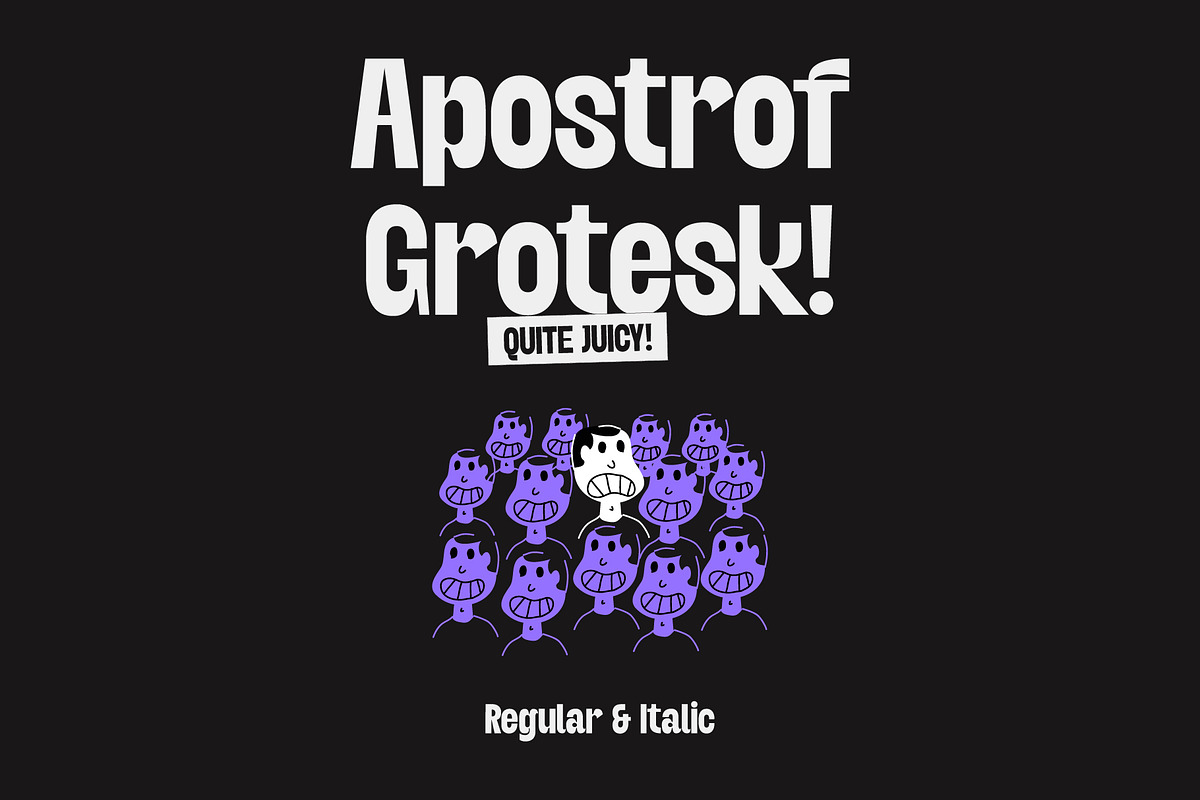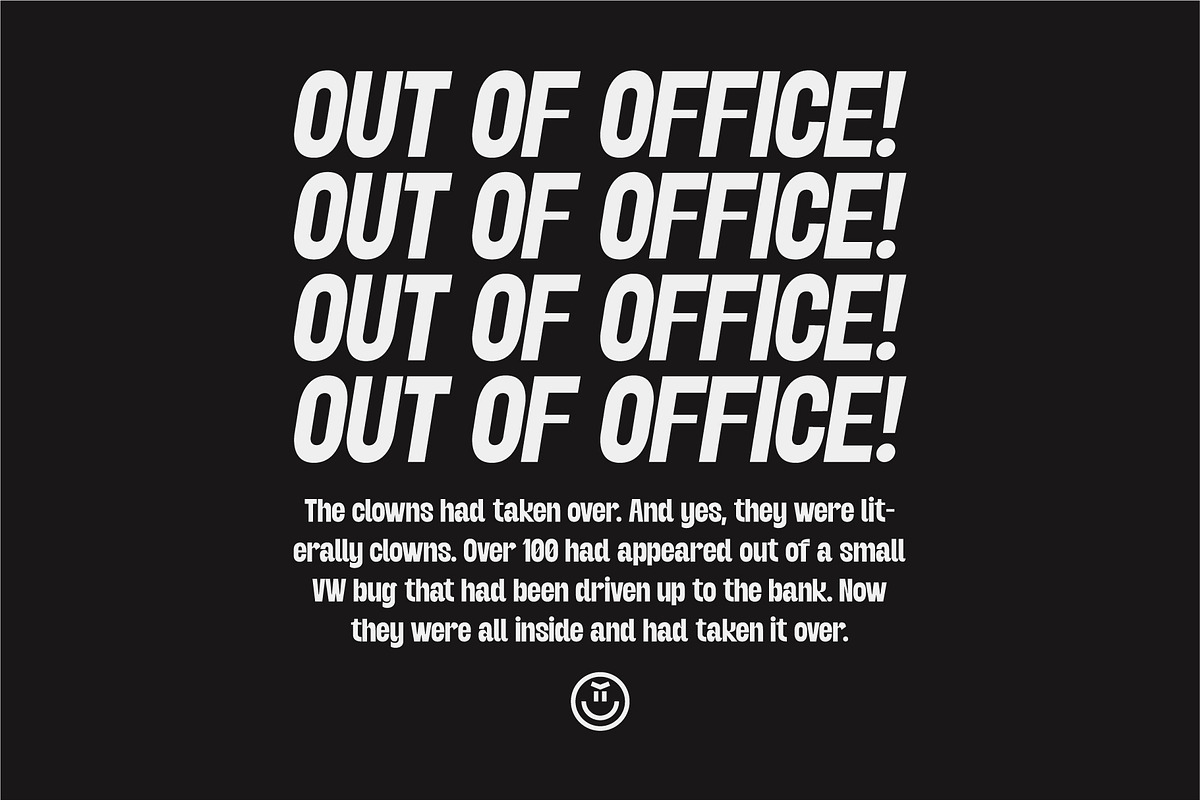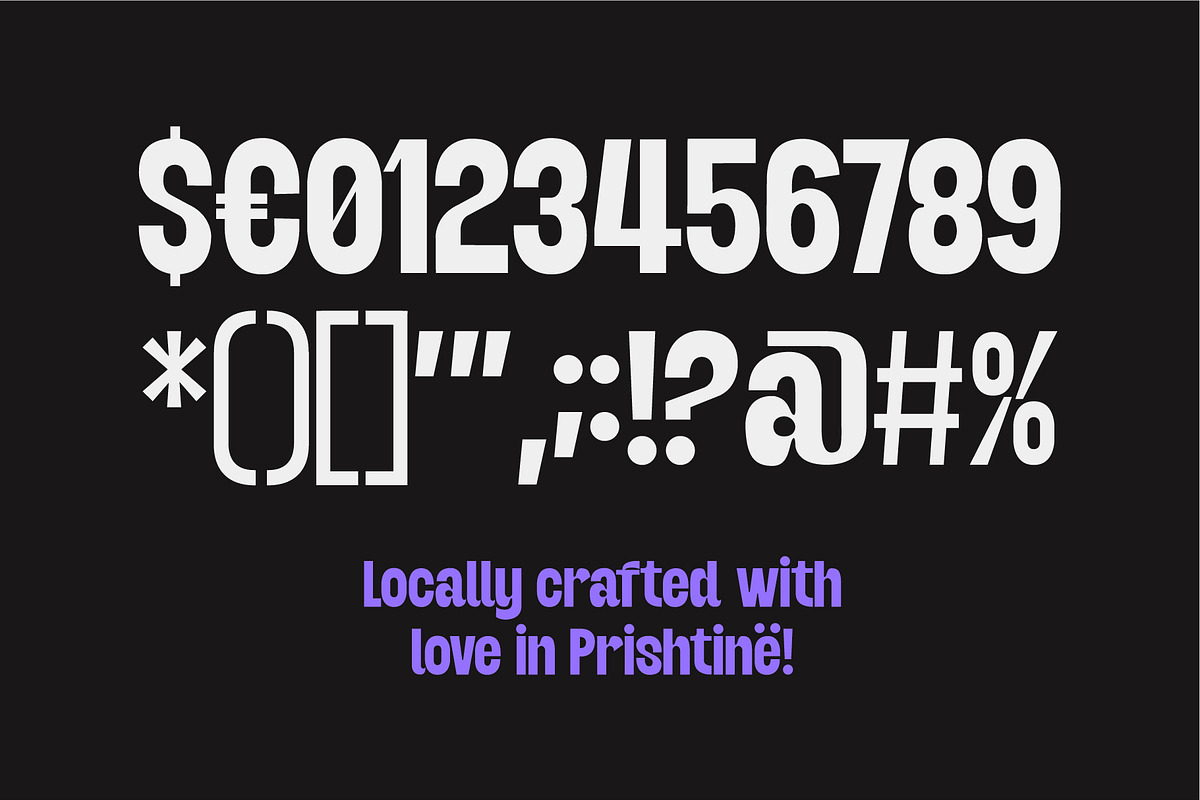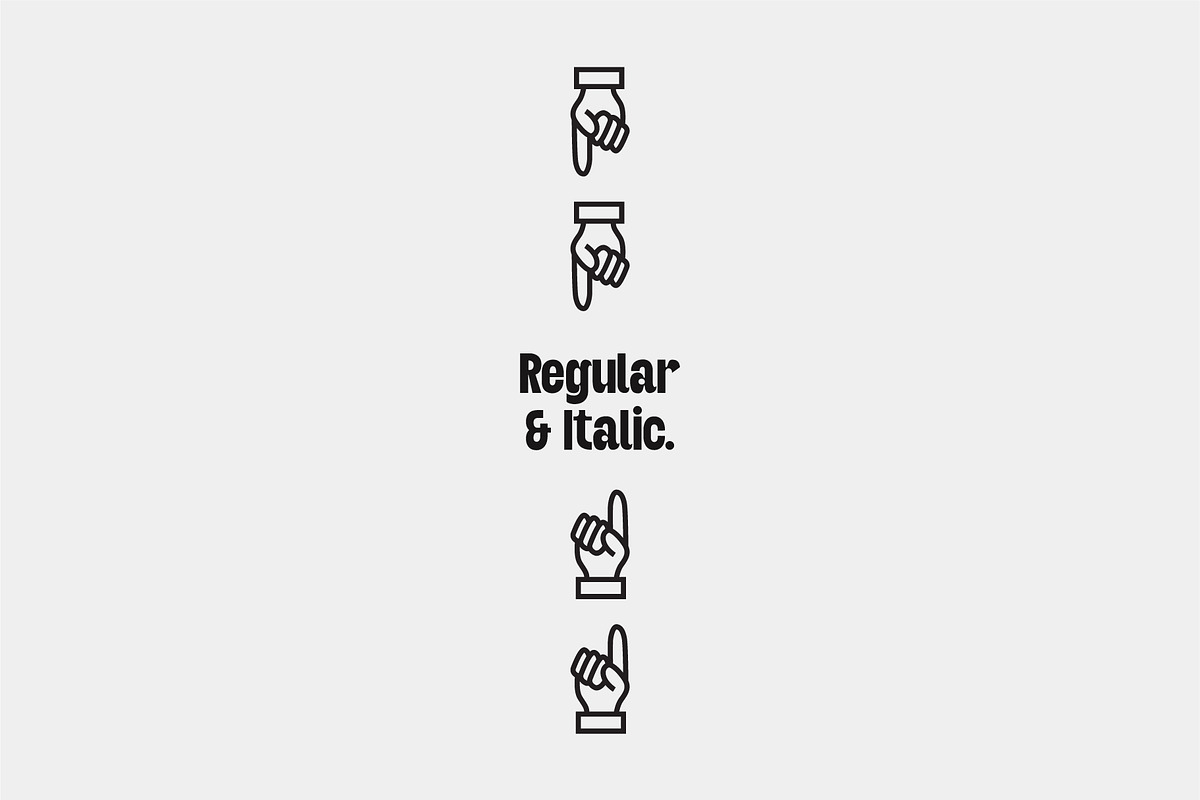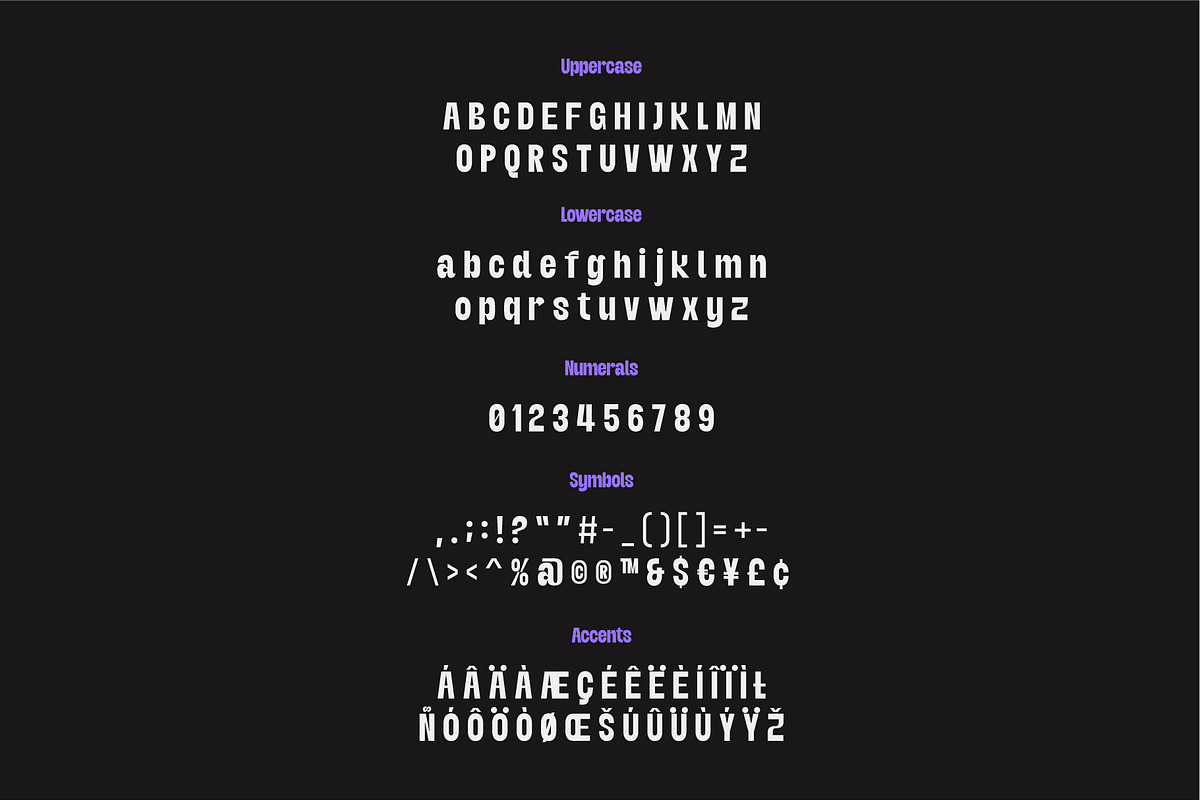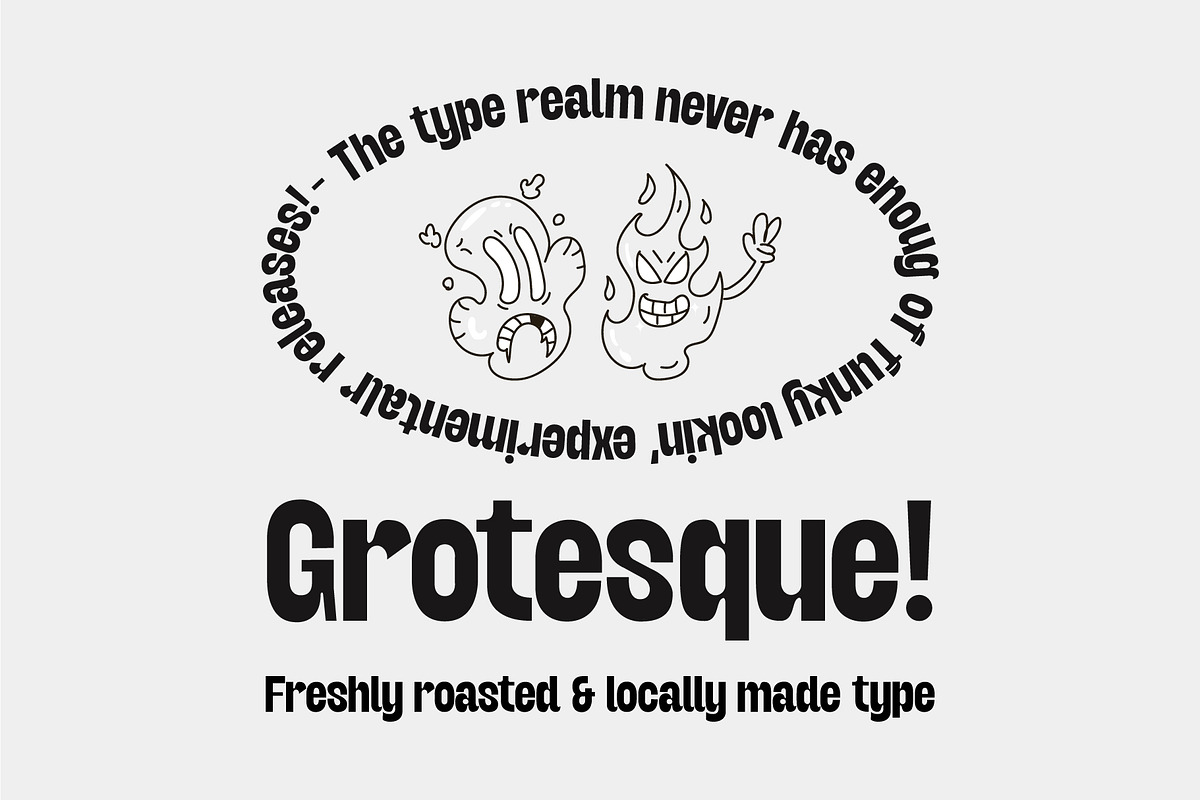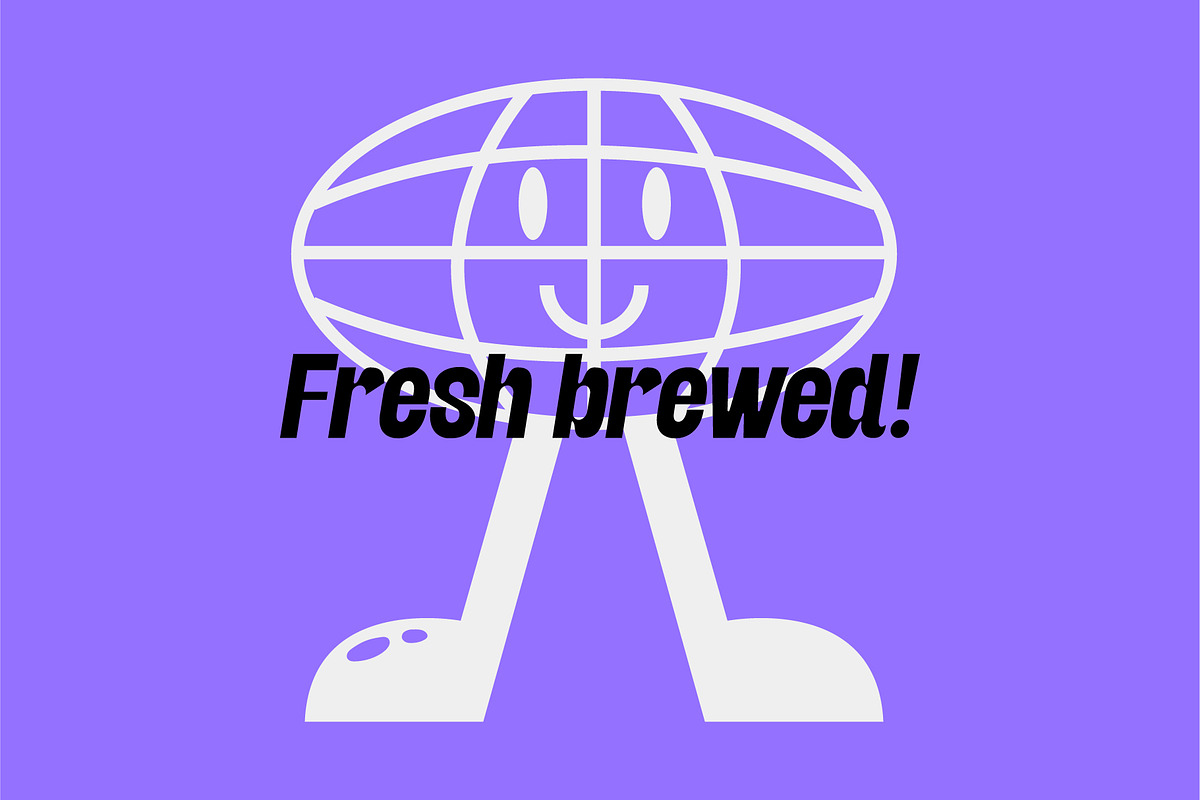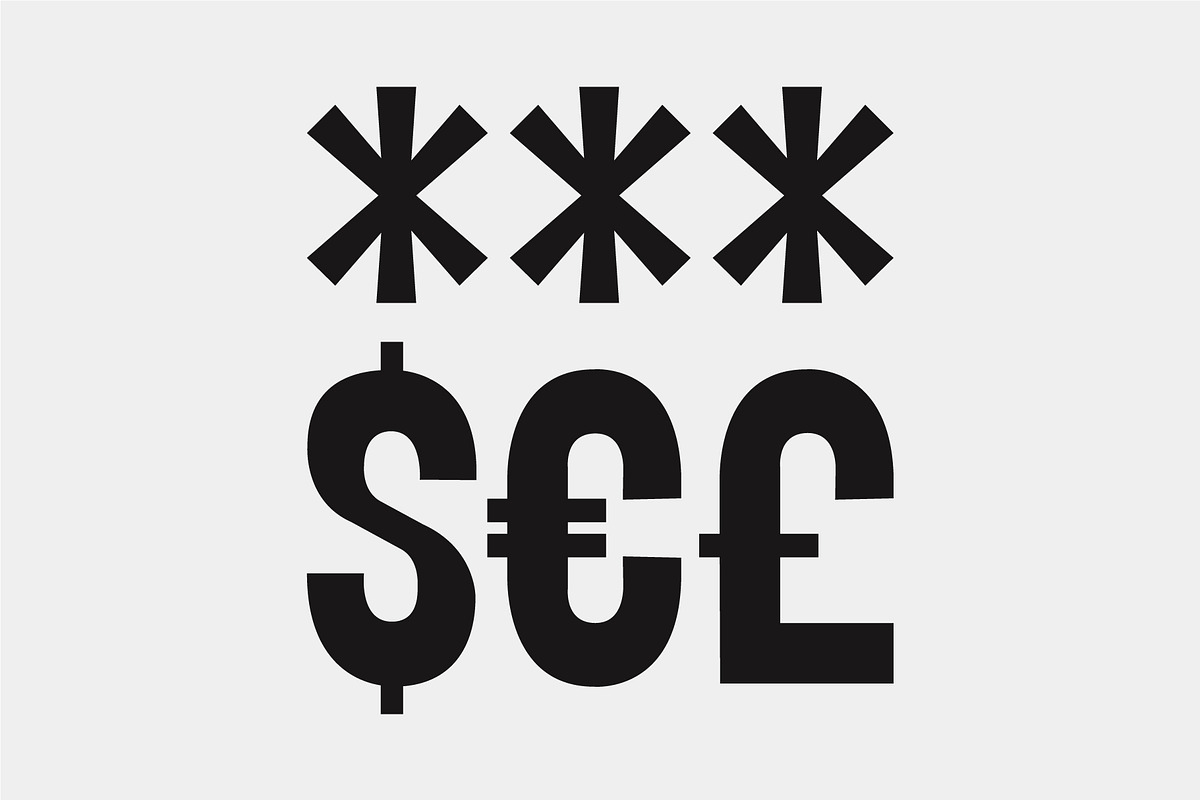
Apostrof - Grotesk Type
Freshly roasted & locally made! The latest type released, Apostrof Grotesk. A type which should not be taken too seriously, a mixture in styles as per usual. Funky factor is there, this one is also quite juicy. Ready to be used in fun projects.
Available in Regular & Italic!
Supports some languages, a lil bit multingual.